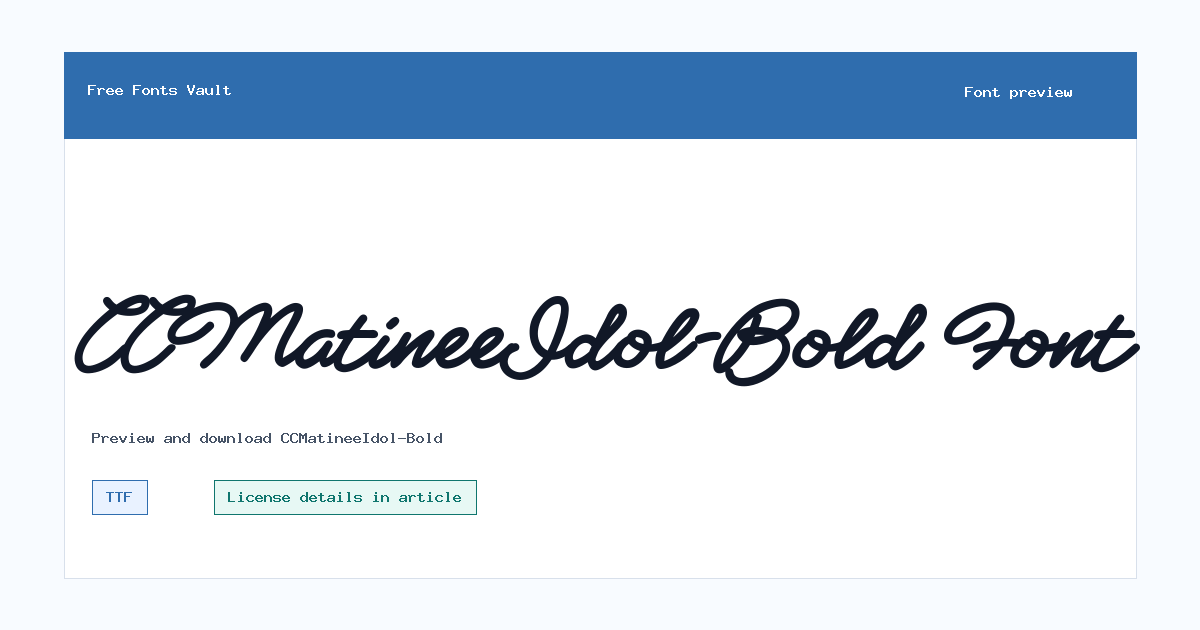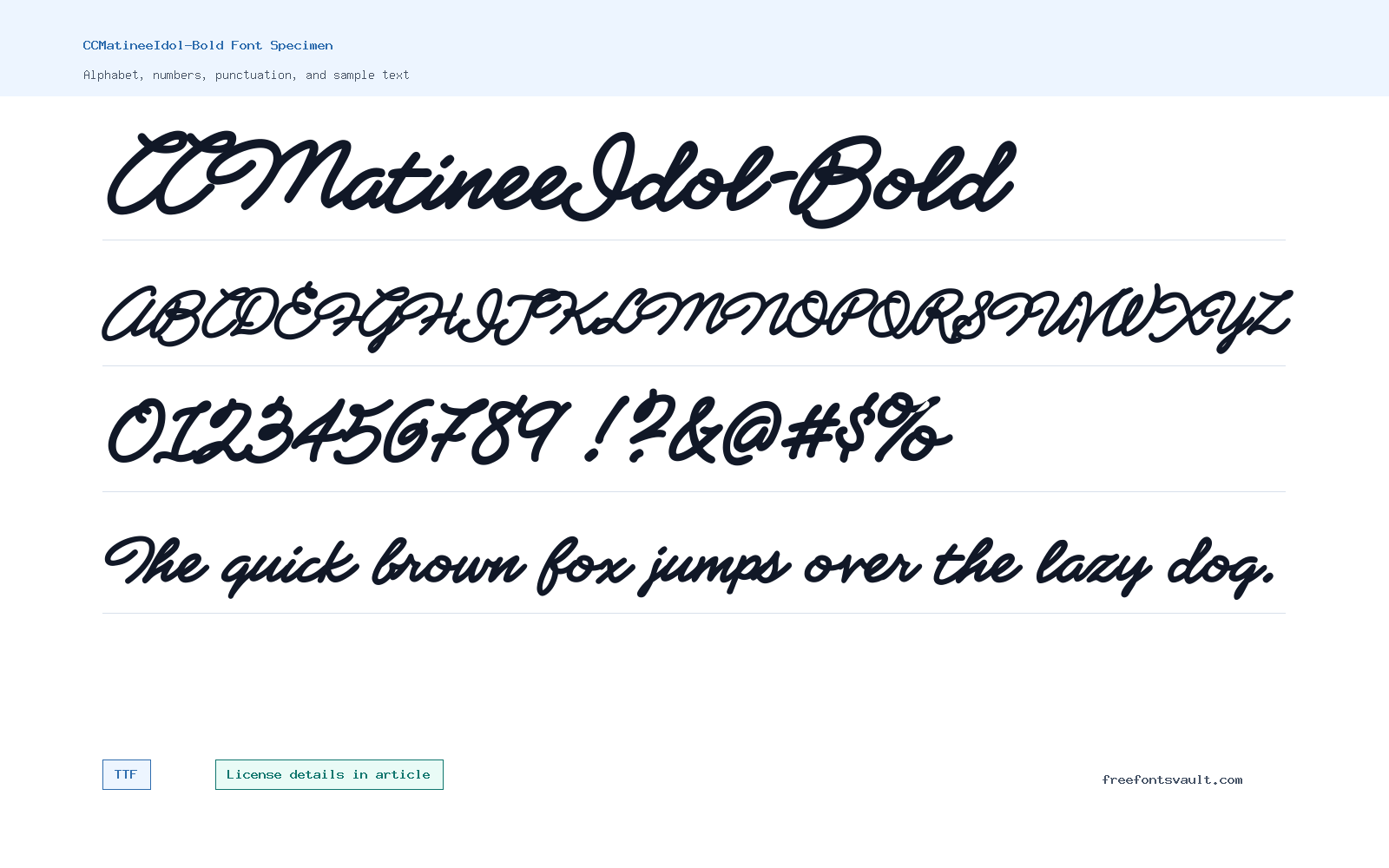
CCMatineeIdol-Bold
- Designer John 'JG' Roshell
- Foundry Active Images
CCMatineeIdol-Bold font.
CCMatineeIdol-Bold is a bold TrueType display font for short text that needs a strong, entertainment-style presence.
About CCMatineeIdol-Bold Font
CCMatineeIdol-Bold is listed as matineeIdol-bold.ttf with normal style and a 700 weight. The page credits John JG Roshell as designer, links Comicraft as the designer website, and lists Active Images as foundry. The bold weight makes the font suitable for display work where a few words need to stand out quickly.
Use it for poster titles, banners, covers, labels, comic-style graphics, thumbnails, logo mockups, and short promotional phrases. It is not meant to carry long body copy. A bold single-style font can become dense when used for paragraphs, so preview your real text and keep longer information in a simpler companion face.
Check uppercase, lowercase, punctuation, numbers, and line spacing before downloading. If the words feel too heavy, add breathing room around the type or reduce the amount of text. The font will usually work best when one bold line is the main focus of the design. It is also worth checking how the bold shapes behave beside images or dark backgrounds. In crowded artwork, give the text more margin and avoid stacking too many bold lines together.
- Designer credited as John JG Roshell
- Comicraft listed as designer website and Active Images as foundry
- Best for short display text, not dense paragraphs
- Strong choice for posters, labels, and title graphics
- Poster titles, banners, covers, and thumbnails
- Comic-style headings, entertainment graphics, and labels
- Short logo mockups, stickers, and promotional lines
- Display typography that needs a bold single-style font
- Previewing heavy title text before final artwork
The designer is listed as John JG Roshell, with Comicraft listed as the designer website and Active Images listed as foundry.
Keep the font focused on the main display line. For supporting text, use a cleaner companion font. Test the preview at the final size, especially if your title includes long words or tight punctuation, and avoid using all available space just because the bold style can fill it quickly.
Is CCMatineeIdol-Bold a bold font?
Yes. The font data lists a 700 weight, which is commonly used for bold display text.
Who is credited for CCMatineeIdol-Bold?
The font data credits John JG Roshell, lists Comicraft as the designer website, and lists Active Images as foundry.
What is it best used for?
It is best for short display uses such as posters, banners, comic-style titles, labels, thumbnails, and logo mockups.